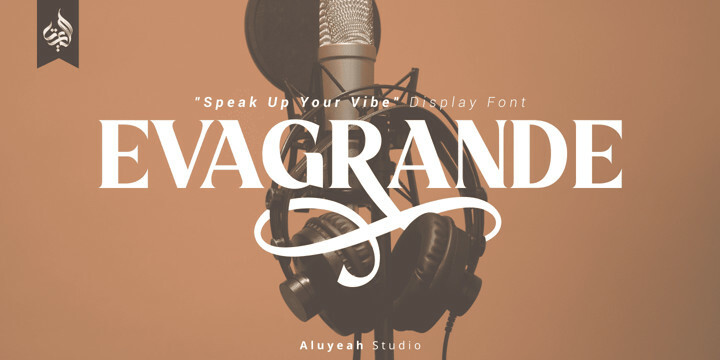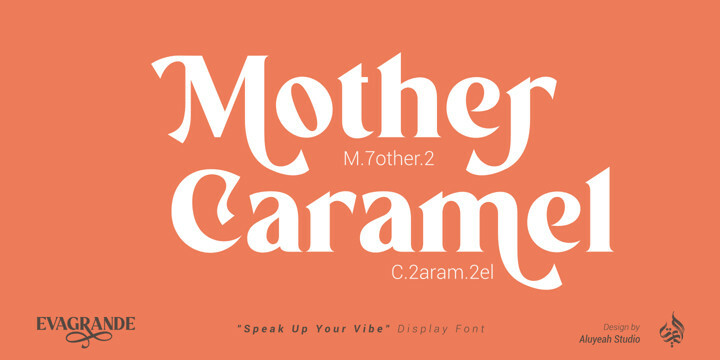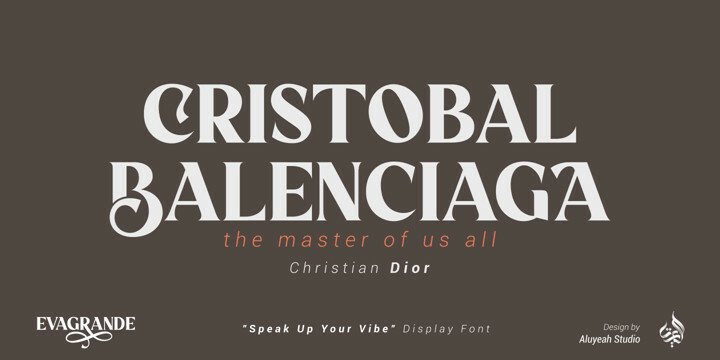
Al Evagrande Font Family
Al Evagrande Font FamilyEvagrande, a “Speak Up Your Vibe” Display Font with 150+ Stunning Vibe Alternates. Very suitable for magazine, headline, website, ads, product package and all type of design project you have. Super Easy to Use alternates – It’s OpenType support but you can easily call alternates character using special combination like A.2 R.4 h.3 etc. so you don’t need special software.